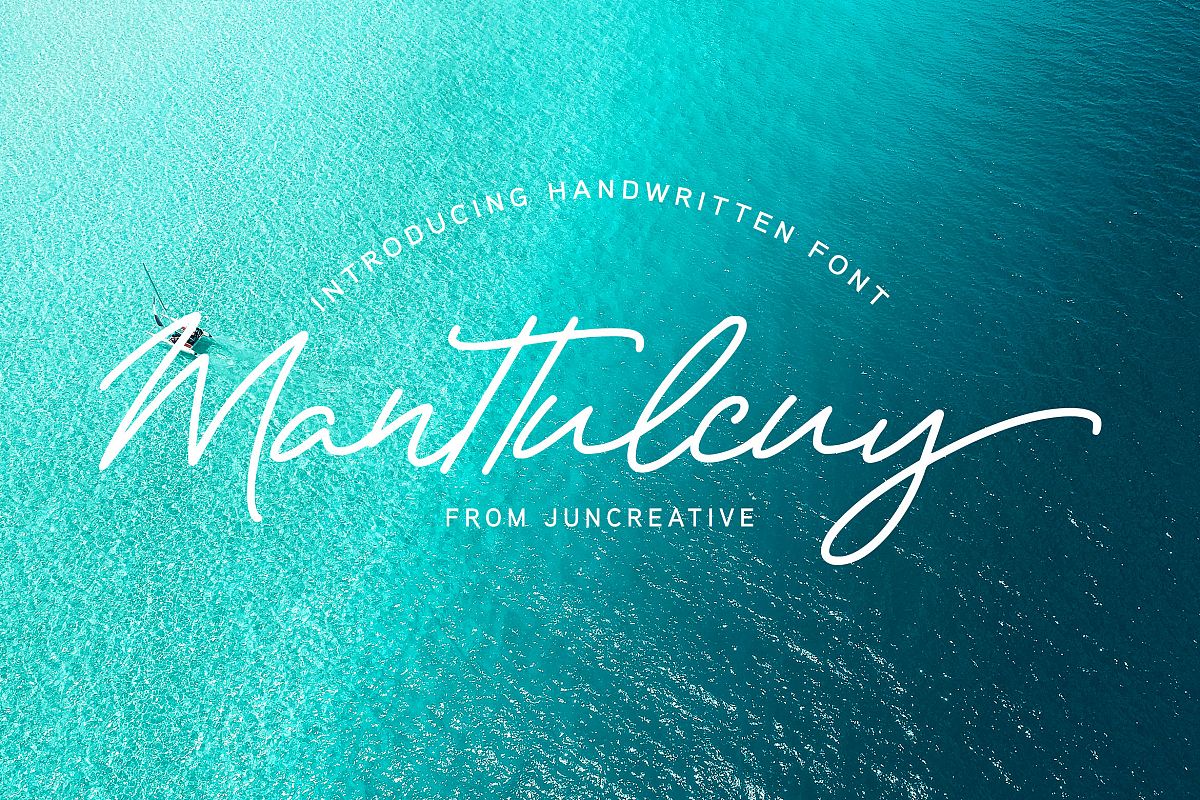
Manttulcuy Signature is a handwritten signature script with a natural & stylish flow, elegant and a smooth. Manttulcuy is perfect for branding projects, logo, wedding designs, social media posts, advertisements, product packaging, product designs, label, photography, watermark, invitation, stationery and any projects that need handwriting taste. What you get: Manttulcuy (OTF) Manttulcuy (TTF)